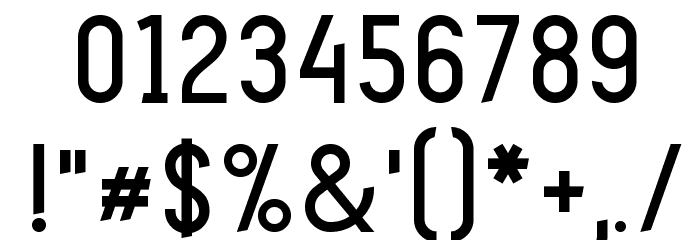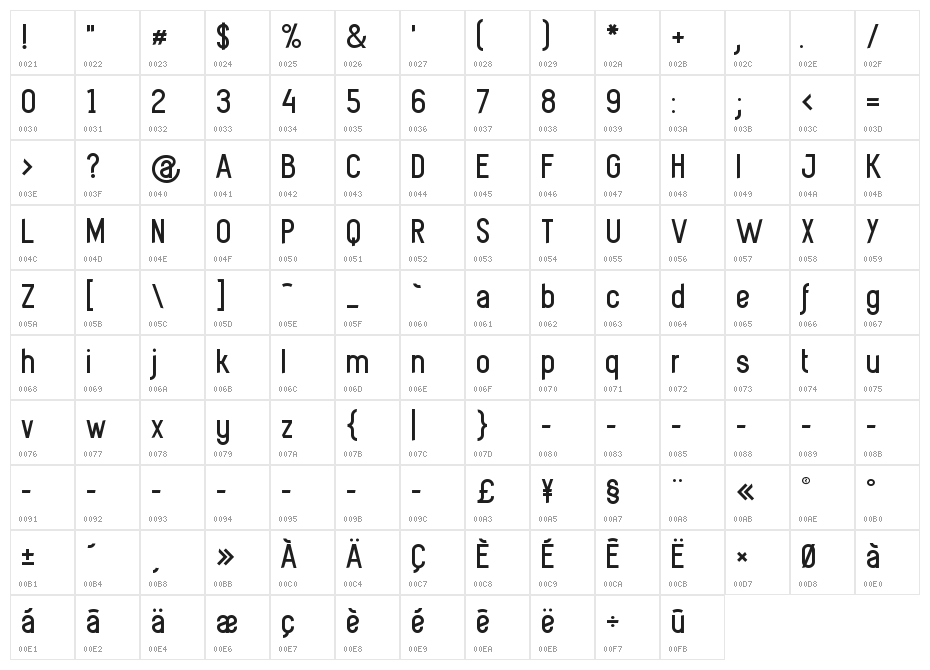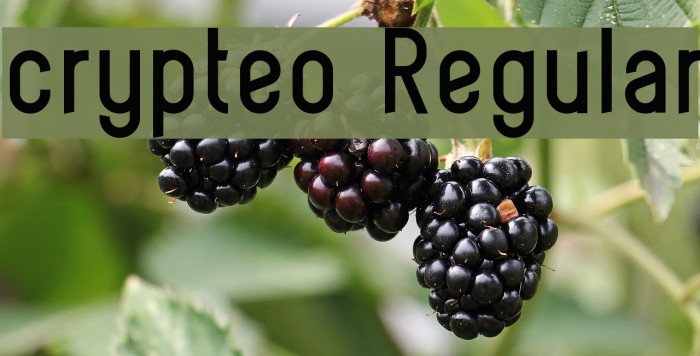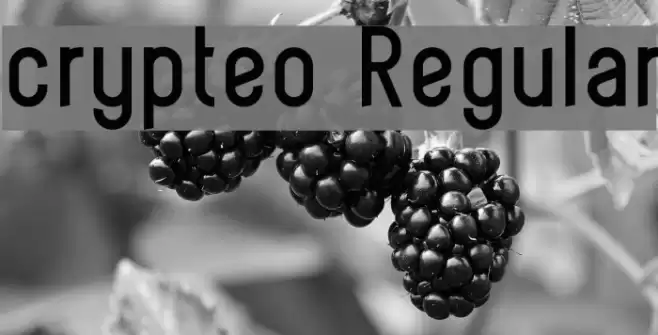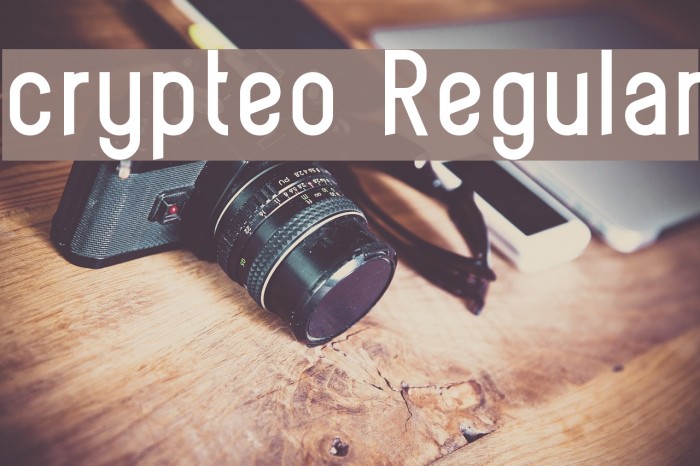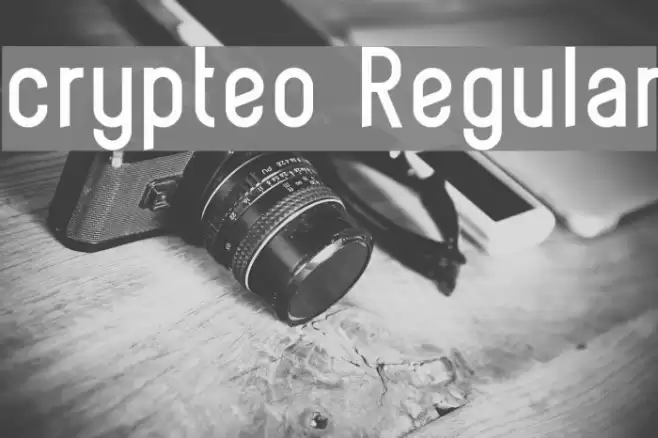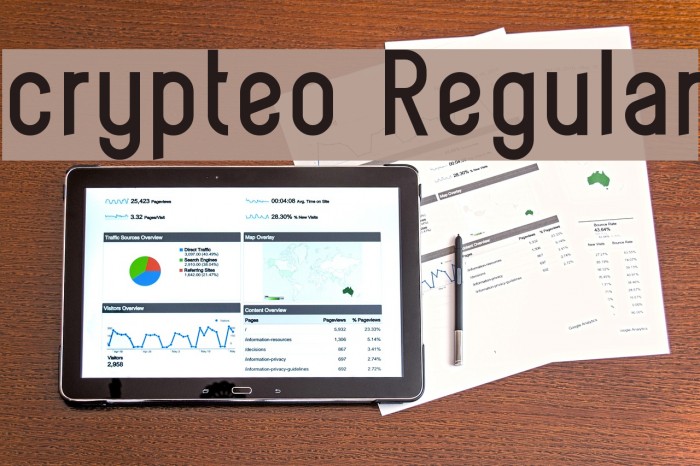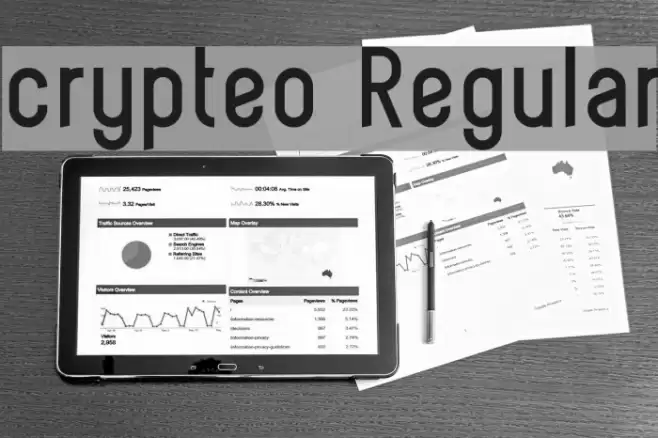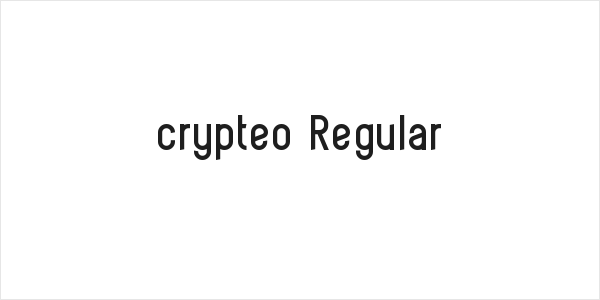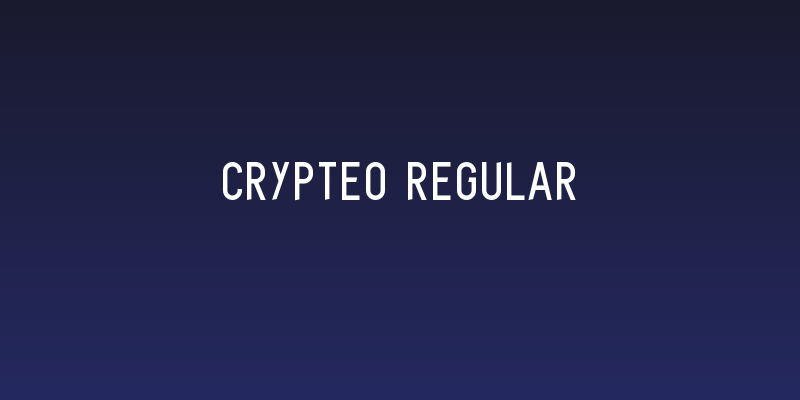
crypteo Regular Font
crypteo Regular Description
This font features a clean and modern sans-serif style with a geometric structure. The characters are well-balanced, offering a uniform appearance that enhances readability. The uppercase letters are bold and assertive, while the lowercase letters maintain a consistent flow with rounded edges. The numerals are clear and distinct, making them suitable for various applications. Special characters are included, providing versatility for different design needs. The overall design is sleek and contemporary, making it ideal for digital and print media.